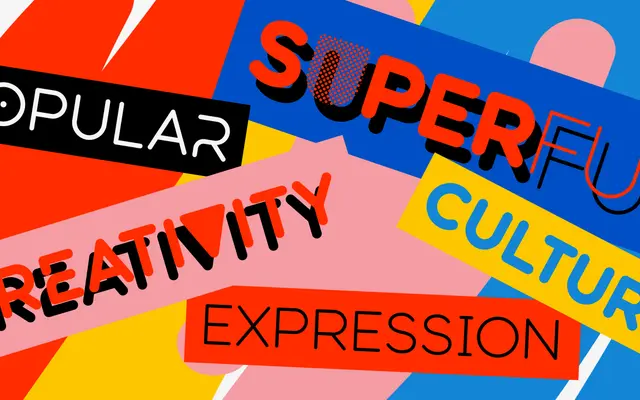
Modulus Pro
A rounded geometric sans in eight weights with extensive OpenType alternates and broad Latin language coverage.
Built as a substantial update to the original Modulus, this family runs from Extra Light to Black across eight weights with no italics. Four stylistic sets and a wide range of individual alternates give designers room to vary letterforms for custom typographic work. Coverage spans Latin Extended, with superscripts, subscripts, fractions and tabular figures included.
A rounded sans-serif with geometric construction, featuring soft terminals and a clean, even stroke weight typical of geometric sans designs.